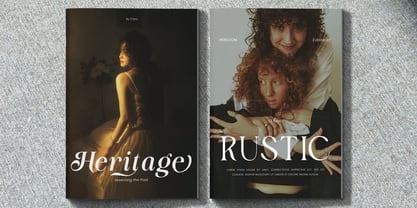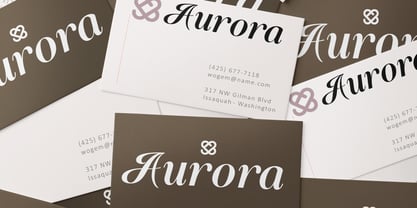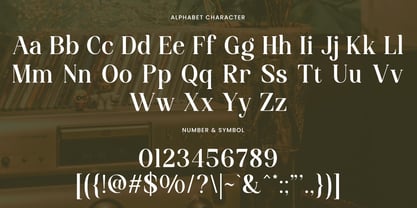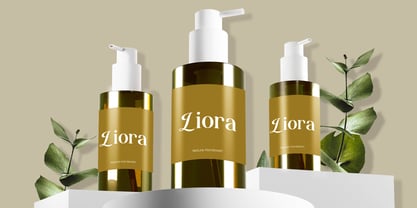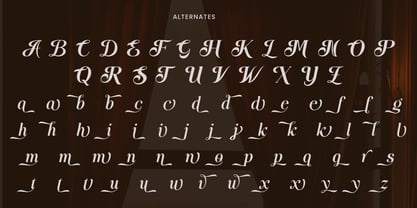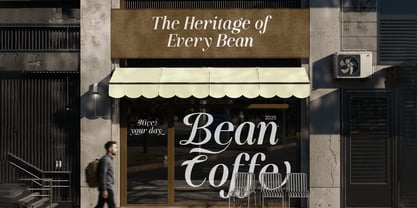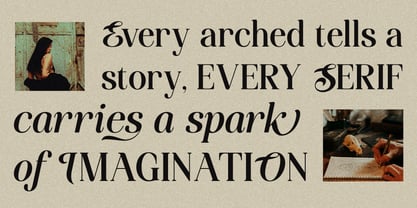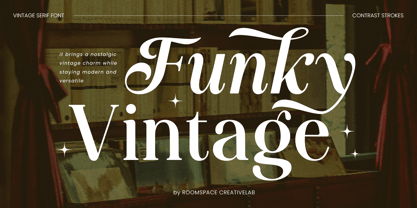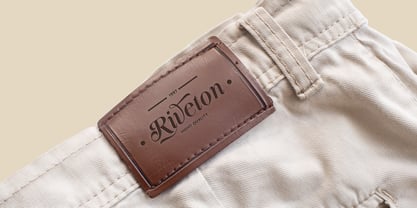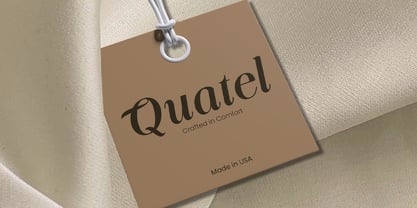
Funky Vintage
The Funky Vintage Font Family was designed by Bakhrudin Ja'far and published by Jafar07. Funky Vintage contains 2 styles and family package options. More about this family
Funky Vintage is a bold serif display font that brings back the nostalgic charm of retro typography while staying modern and versatile. With its stylish strokes and refined details, this font blends timeless elegance with a fresh contemporary vibe. Each character in Funky Vintage is crafted with contrast and flair, featuring bold lines, elegant curves, and smooth kerning for a perfect reading experience. It comes with stylish alternates and ligatures, making it easy to add personality and uniqueness to your design projects. Whether you’re creating logos, branding, packaging, posters, social media graphics, editorials, or wedding invitations, Funky Vintage is your go-to choice for bold and memorable typography. Try it today and give your designs a touch of retro sophistication that never goes out of style! Please don’t hesitate to contact me if you have any questions. Happy creating and have a good day!
Funky Vintage